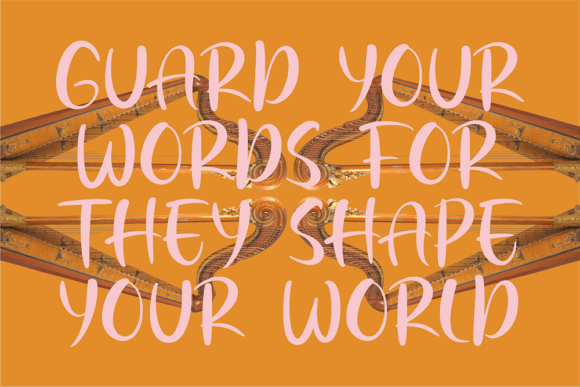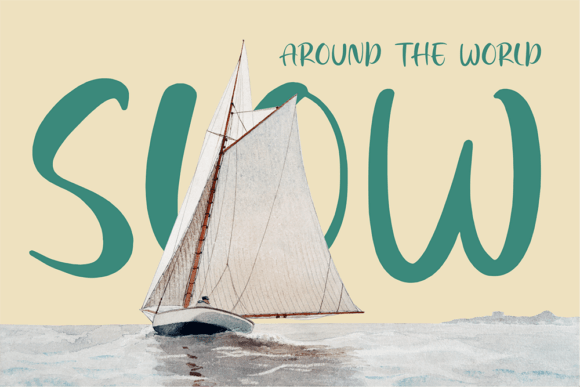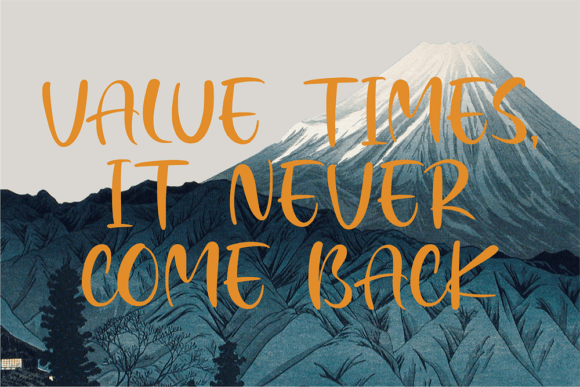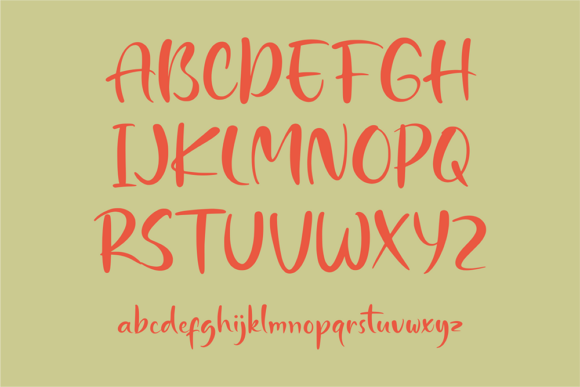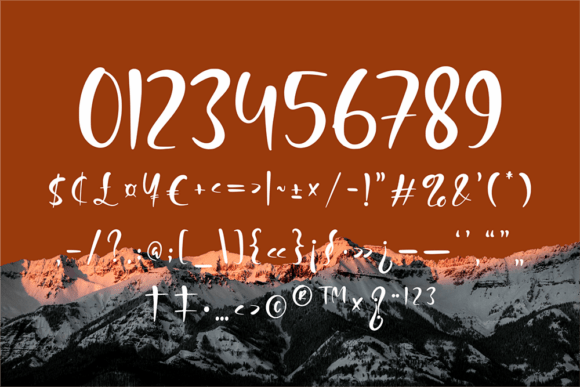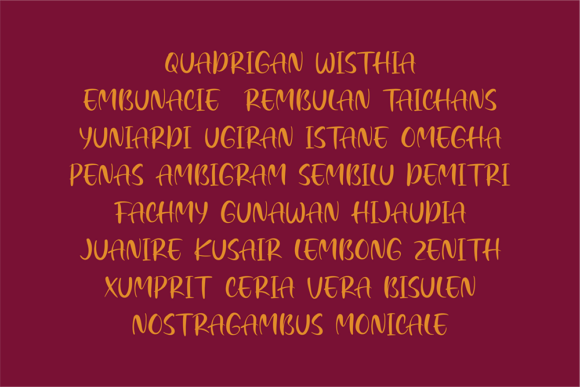
Introducing Baiqhuny: The Vibrant Handwritten Typeface to Elevate Your Designs
In the realm of typography, a font can make all the difference in capturing the essence of a brand or creative project. Enxyclo Studio, a hub of innovative design, presents Baiqhuny, a lively and audacious handwritten typeface engineered to breathe life and originality into your ventures. This remarkable font is poised to revolutionize the way you approach design, offering a perfect blend of casual allure and artistic flair.
The Genesis of Baiqhuny
Baiqhuny is the brainchild of Enxyclo Studio, a team of visionary designers who sought to create a typeface that would stand out in the crowded world of typography. By merging distinctive brush strokes with lively letterforms, they have crafted a font that not only seizes attention but also radiates charm and personality. This unique fusion makes Baiqhuny an indispensable tool for designers and crafters looking to elevate their projects.
Key Features of Baiqhuny
Baiqhuny boasts an impressive feature set that sets it apart from other typefaces. Some of its key attributes include:
- Extensive glyph library: With a grand total of 390 unique glyphs, this font offers wide-ranged multilingual support, making it an excellent choice for global brands and projects.
- Comprehensive character set: Baiqhuny includes uppercase, lowercase, numerals, punctuation, symbols, separators, currencies, and ligatures, providing everything you need to create stunning designs.
The Artistic Allure of Baiqhuny
The signature brush-style strokes of Baiqhuny lend a vivacious and dynamic feel to your designs, making it perfect for projects that demand a touch of personality and whimsy. The letterforms are carefully crafted to strike an optimal balance between readability and artistic panache, rendering it adaptable to both print and digital design projects.
Perfect for Brands and Designers
Baiqhuny is the perfect match for brands and designers seeking to create a lasting impression. Its unique blend of casual allure and artistic flair makes it an excellent choice for:
- Logos and branding: Baiqhuny’s distinctive style can help you create a memorable brand identity that stands out in the market.
- Print design: From business cards to billboards, Baiqhuny’s readability and artistic flair make it an excellent choice for print design projects.
- Digital design: Whether you’re designing for social media, websites, or mobile apps, Baiqhuny’s dynamic feel and versatility ensure your text will seize attention and engage your audience.
Unlock Your Creative Potential with Baiqhuny
As a designer or crafter, you’re constantly on the lookout for innovative tools to elevate your projects. Baiqhuny offers a world of creative possibilities, empowering you to:
- Express your unique style: With Baiqhuny, you can infuse your designs with personality and whimsy, setting your work apart from the ordinary.
- Save time and effort: The extensive feature set and multilingual support of Baiqhuny ensure you can focus on the creative aspects of your project, rather than tedious font formatting.
In conclusion, Baiqhuny is a game-changing handwritten typeface that can revolutionize the way you approach design. Its unique blend of casual allure and artistic flair, combined with its extensive feature set and multilingual support, make it an indispensable tool for designers and crafters. Unlock your creative potential with Baiqhuny and discover a world of limitless design possibilities.